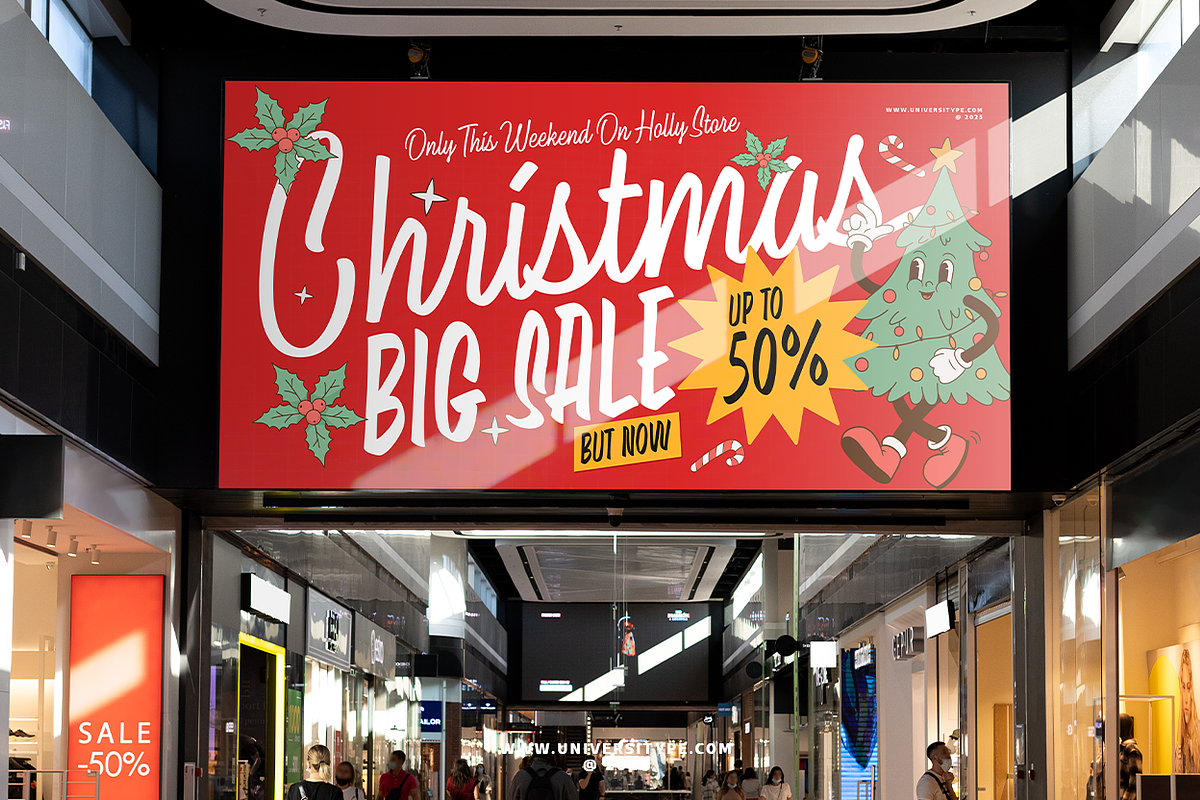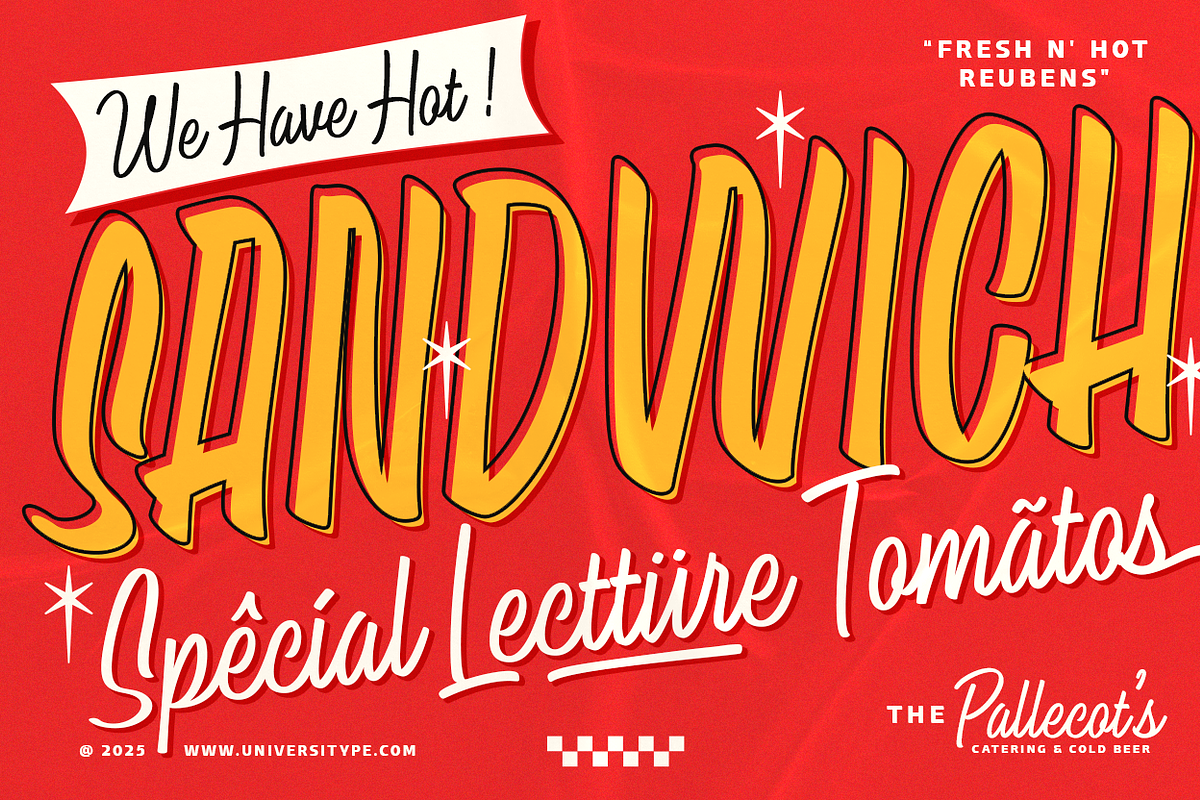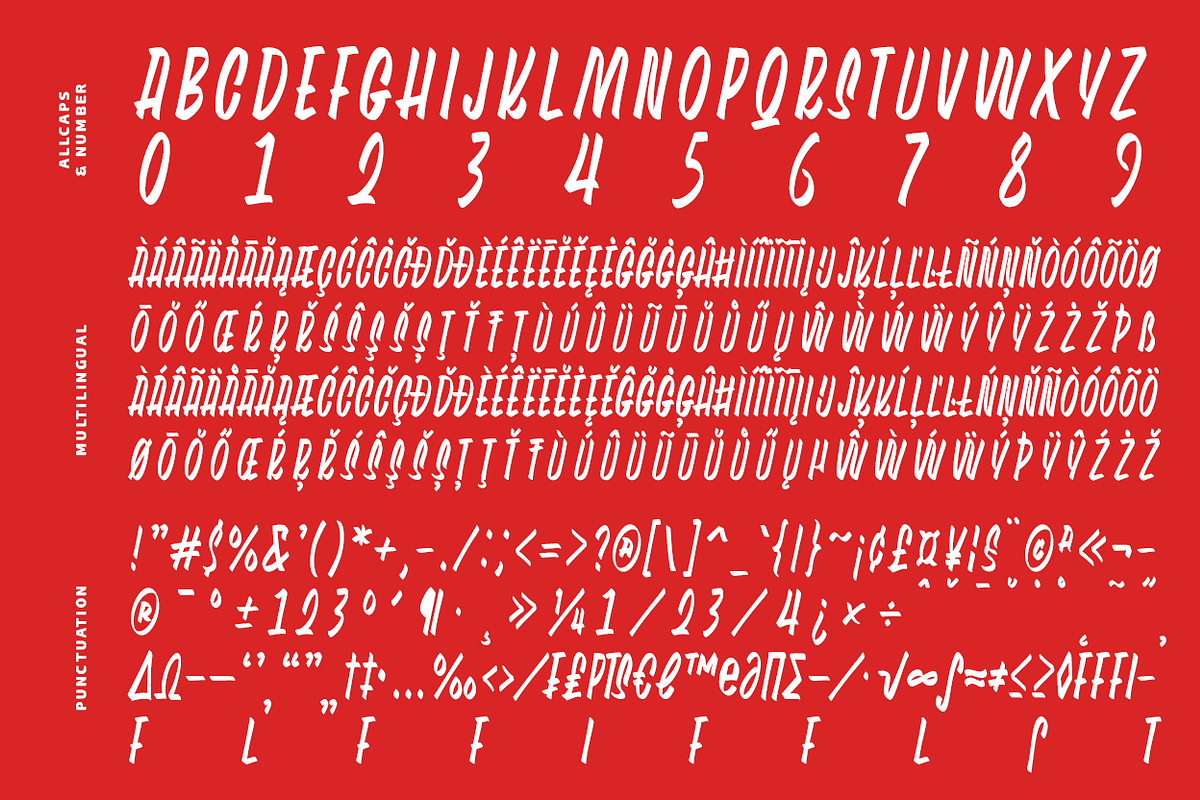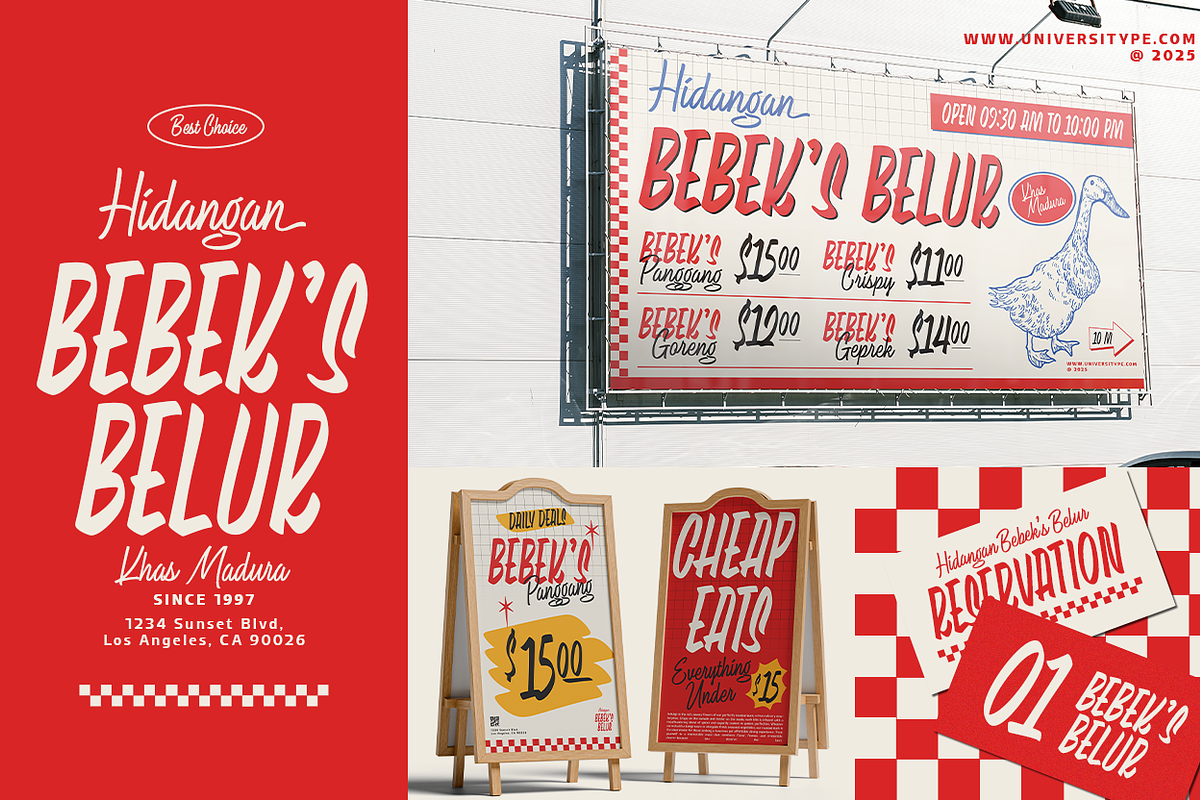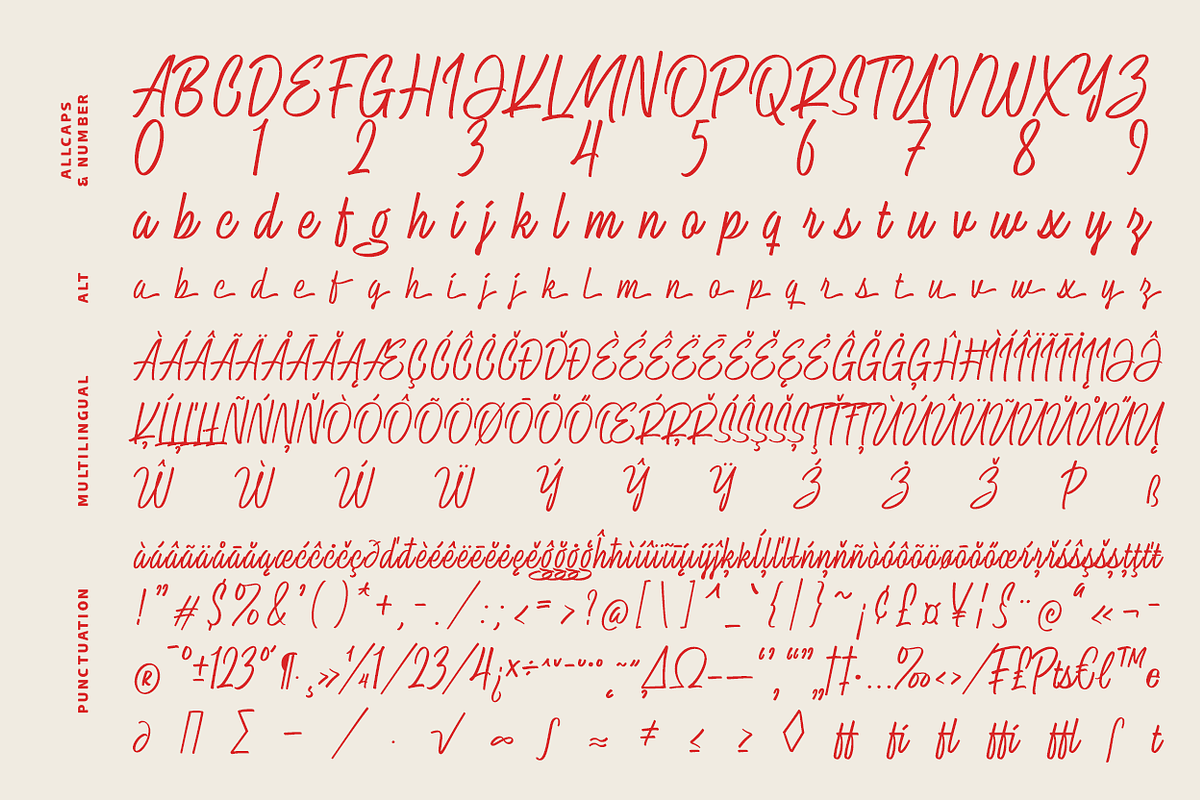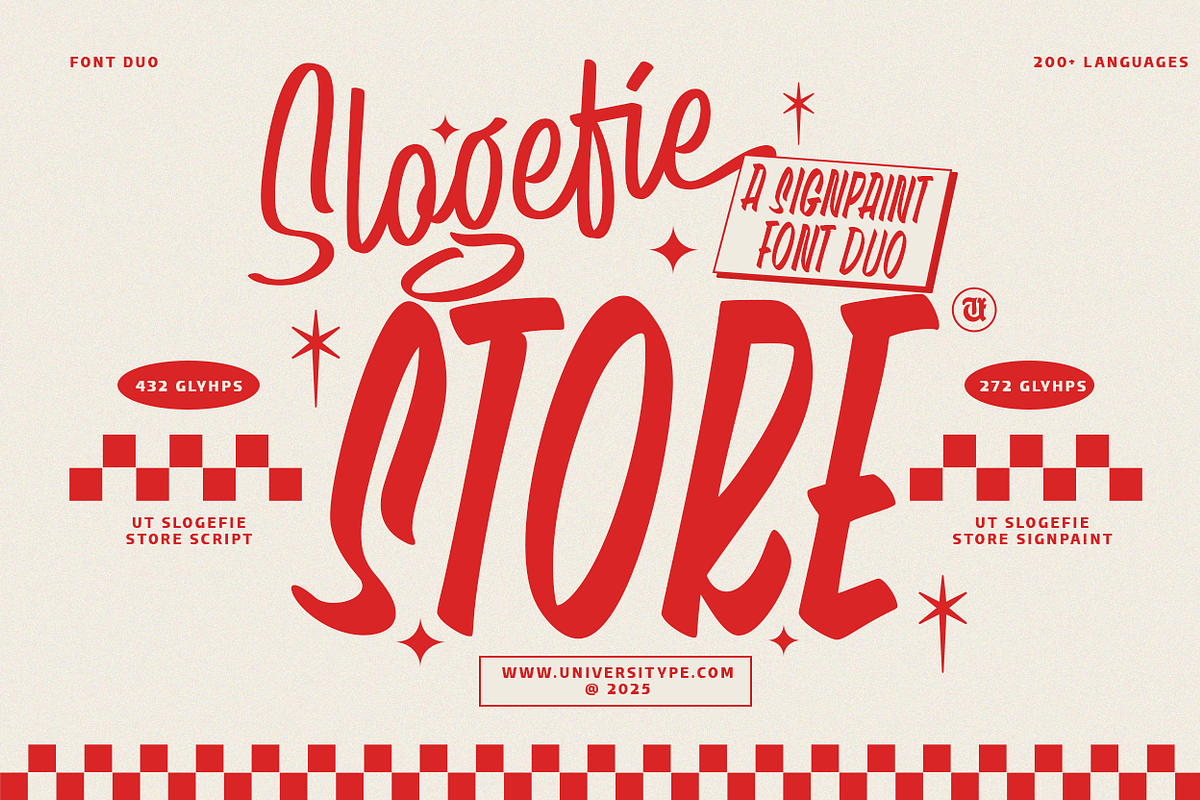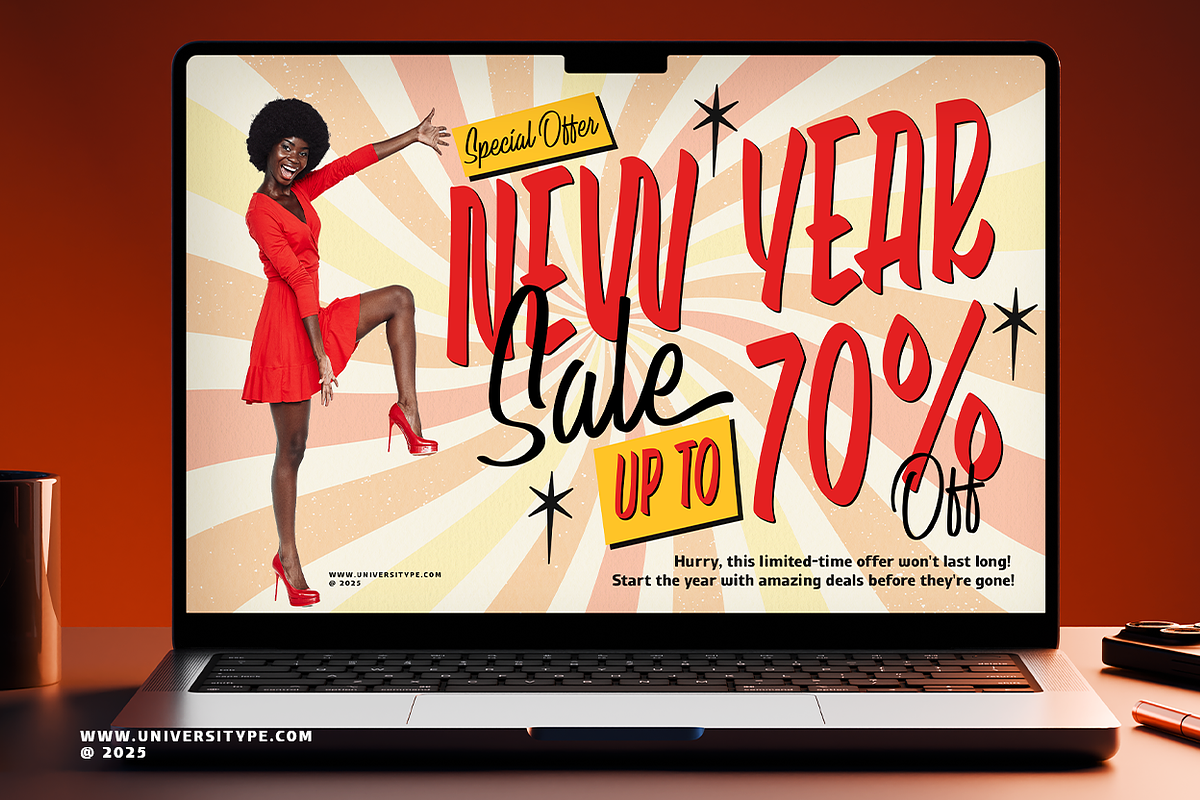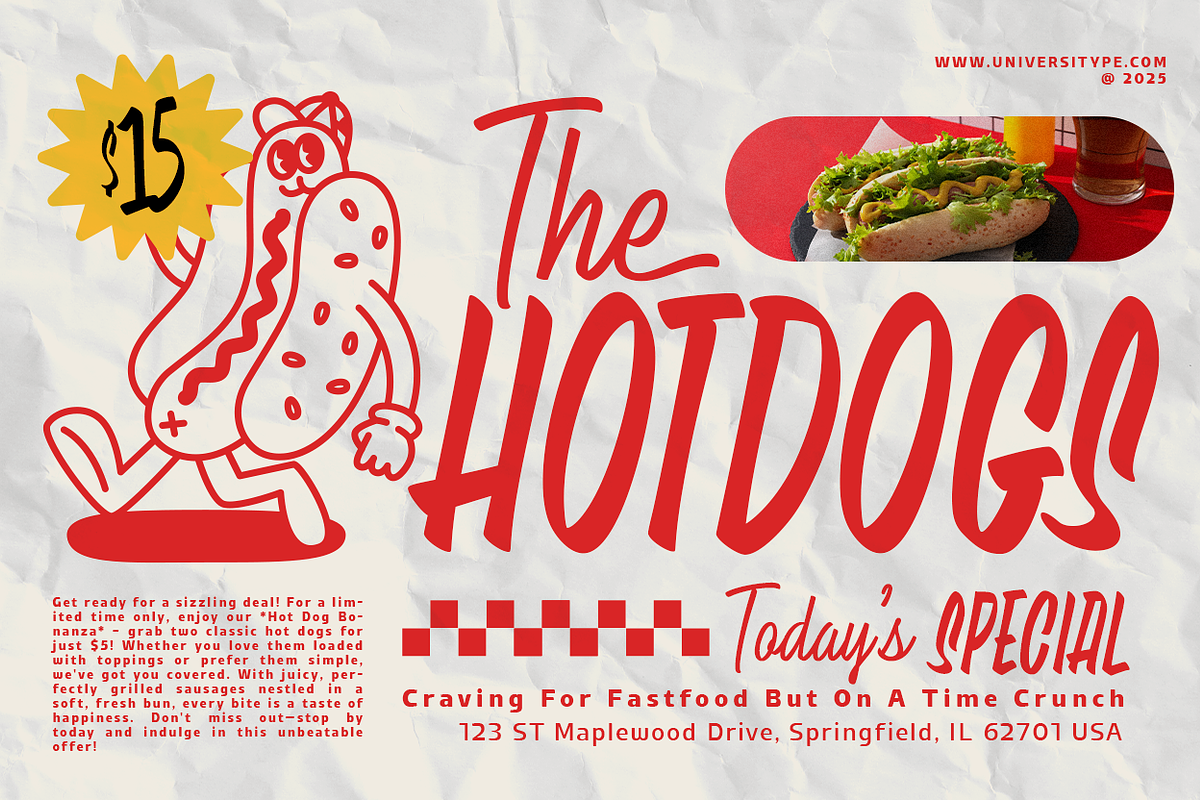
UT Slogefie Store Font Duo
Introducing UT Slogefie Store, a vibrant and versatile font duo that combines the charm of script with the boldness of signpaint. Perfect for creating eye-catching designs that stand out, UT Slogefie is ideal for branding, advertising, and any creative project that requires a touch of flair and personality.
Target Audience: This font is designed for graphic designers, branding agencies, marketing professionals, and anyone involved in creative projects that aim to capture attention and convey a sense of fun and energy.
Key Features: – Font Duo: Includes two complementary styles: a script for elegance and a signpaint for impact.
– Multilingual Support: With glyphs for over 200 languages, making it a global-friendly choice.
– Extensive Glyph Set: 432 glyphs for the script and 272 for the signpaint, offering a wide range of characters and symbols.
– Versatility: Suitable for both digital and print media, ensuring consistency across all platforms.
Inspiration Behind the UT Slogefie Store Design : UT Slogefie draws inspiration from classic signage and hand-lettering techniques, infusing a modern twist to create a font that is both nostalgic and contemporary. The design aims to evoke the lively atmosphere of vintage storefronts and the personal touch of handcrafted art.
Usage Suggestions: Branding: Use for logos, signage, and brand materials to create a memorable and distinctive identity. Marketing: Perfect for advertising campaigns, posters, and flyers that need to grab attention quickly. Packaging: Enhance product packaging with a font that adds character and appeal. Events: Ideal for invitations, banners, and decorations for events that want to convey a festive and energetic vibe.
UT Slogefie is more than just a font, it’s a tool for creative expression, ready to elevate your projects to new heights of visual appeal and impact.